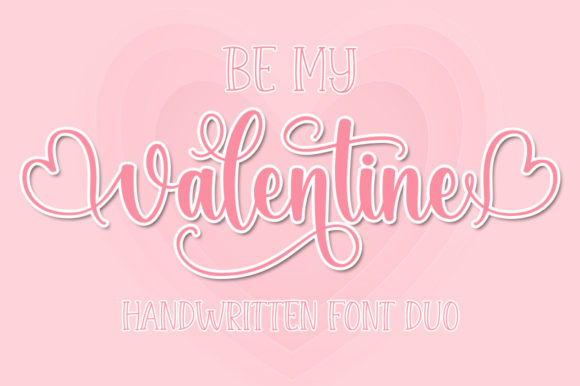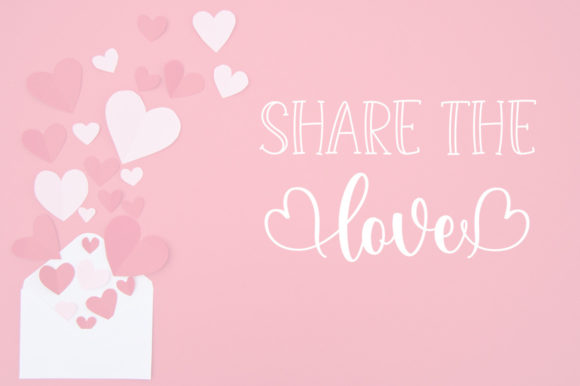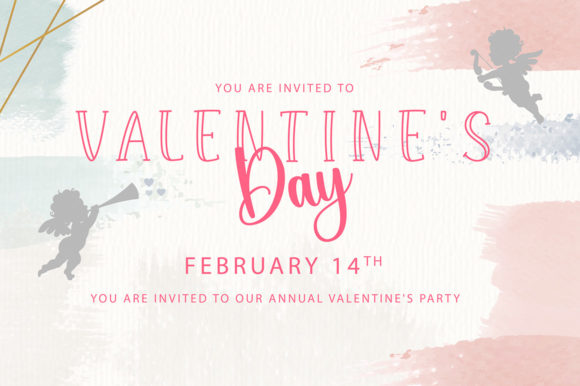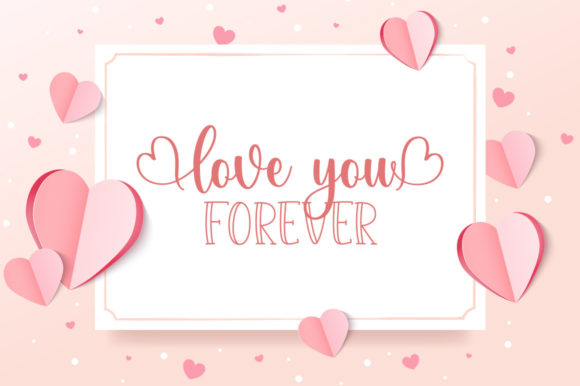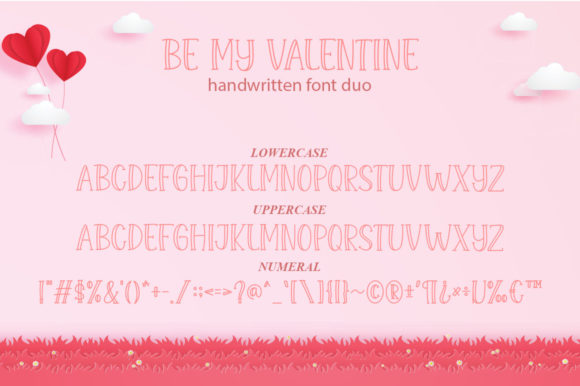
About Be My Valentine Font
Be My Valentine is a lovely duo font featuring an outlined serif and an elegant and flowing handwritten font. It has beautiful and well-balanced characters, and as a result, it matches a wide pool of designs. Add it to your most creative ideas, and notice how it makes them come alive!